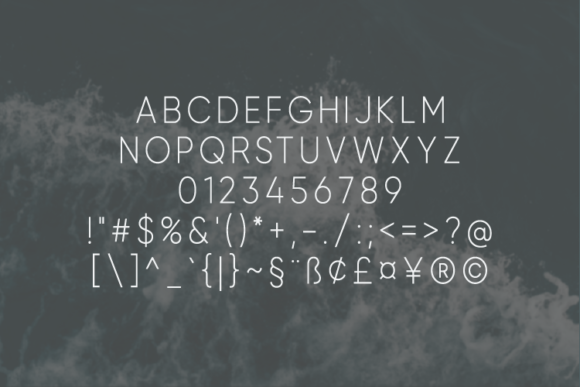
Give Your Designs a Fresh Perspective with Beone Light Font
Have you ever stared at a blank page, feeling the pressure to create something amazing? That’s where the magic happens, and inspiration strikes. For designers like you, finding the right font can be the difference between a mediocre project and a masterpiece. Imagine a clean, modern sans serif font that captures the essence of trendy minimal branding and natural cosmetic packaging design. Welcome to Beone Light Font, the perfect companion for your next creative venture.
| 👤 Author | Nan Design |
Beone Light Font is more than just a font – it’s a tool that helps you give your projects a professional and sleek look. Its creamy neutral shades and clean lines make it an ideal choice for designers who want to create visually appealing designs that stand out from the crowd. Whether you’re working on a branding project, a product label, or a website, Beone Light Font is the perfect addition to your design arsenal.
Beone Light Font Key Features
- Unique Characteristics: Elegant, modern design with a clean and minimalist aesthetic; perfect for digital interfaces, branding, and publishing
- Kerning and Ligatures: Advanced kerning and ligature support for professional typography
Beone Light Font Review
Overall, I was excited to dive into Beone Light Font, a modern sans-serif typeface designed for readability. Here’s my honest take on what works well and what could be improved.
- Elegant and sleek design, perfect for contemporary projects.
- Highly legible, making it suitable for body text and paragraphs.
- A wide range of languages supported, including Cyrillic, Greek, and Vietnamese.
- May not be the best choice for heading fonts due to its relatively small x-height.
- Lack of bold weight, which might limit its use in certain design contexts.
- Not ideal for use in small font sizes, as it may become difficult to read.
Beone Light Font is a solid choice for designers seeking a clean and modern sans-serif typeface. While it may have some limitations, its elegant design and high legibility make it a great option for body text and paragraphs. However, its lack of bold weight and suitability for small font sizes might restrict its use in certain projects.
Tips for Getting the Most Out of Beone Light Font
Beone Light Font is a versatile font that can be used for a variety of purposes. Here are some tips for getting the most out of it:
– Use it for titles and headings to add a touch of elegance.
– Pair it with other fonts to create a unique and interesting typography.
– Use it for body text to create a clean and modern look.
Beone Light Font is commonly used for:
– Branding and logos.
– Marketing materials such as brochures and flyers.
– Website design and development.
– Social media graphics and posts.